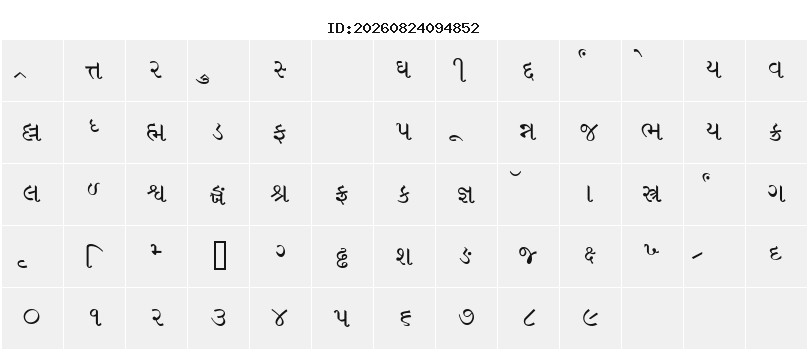
Sambhaav Preview
• Font Name: Sambhaav
• Font ID: Sambhaav Normal
• Full Font Name: Sambhaav
• Version: Normal
• PostScript Name: Sambhaav
About Sambhaav.ttf
Sambhaav.ttf is a modern, elegant sans-serif font designed for ultimate readability and visual harmony. Perfect for branding, headlines, web design, and print materials.